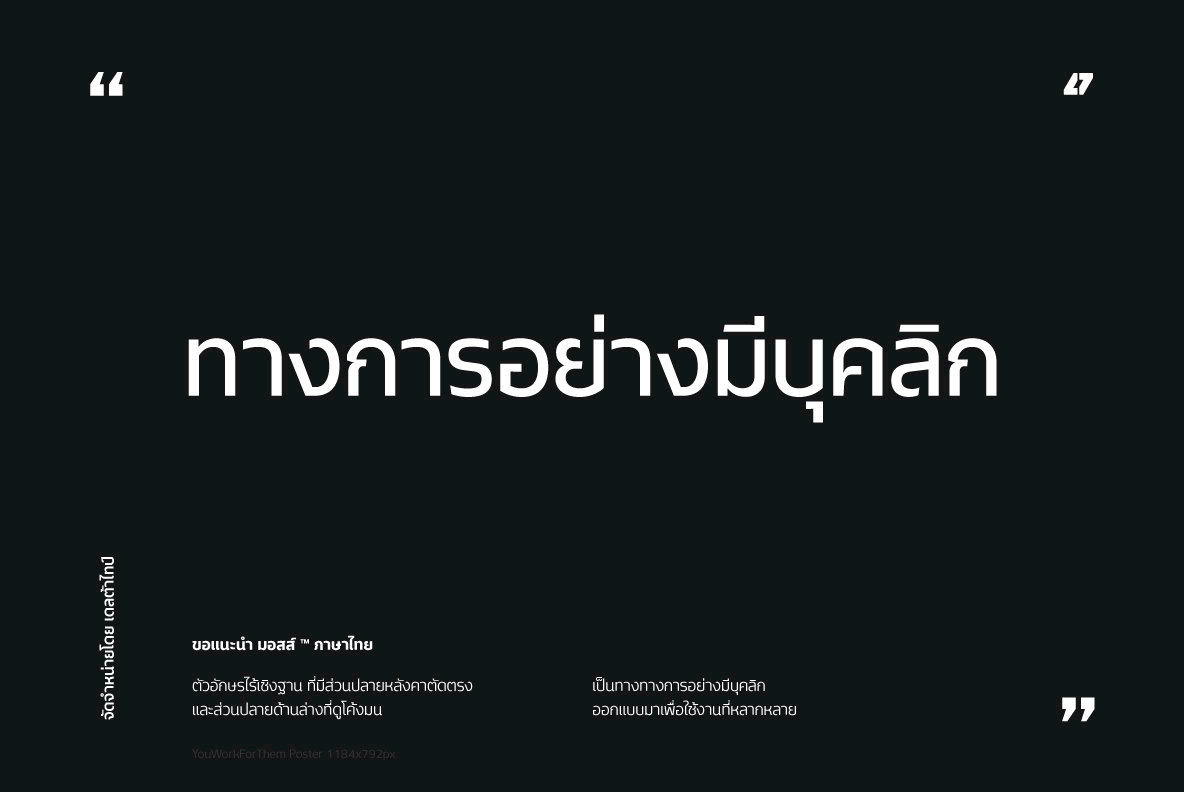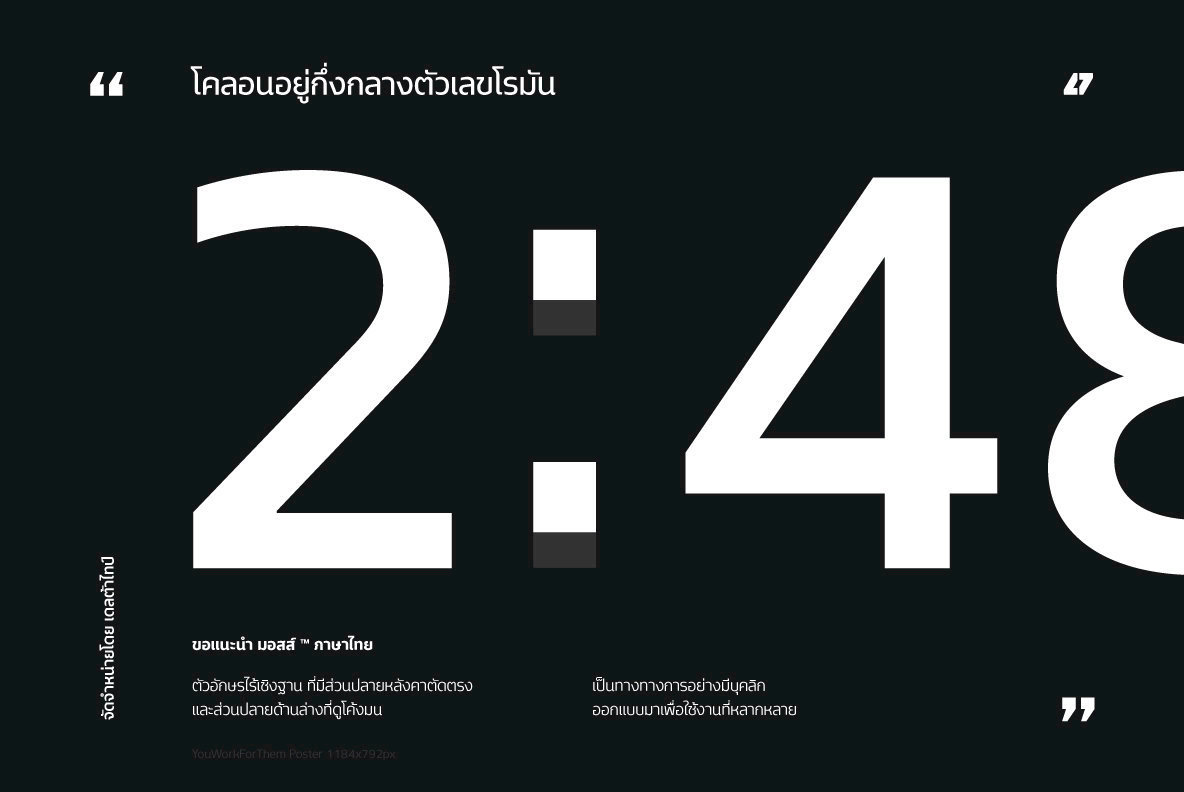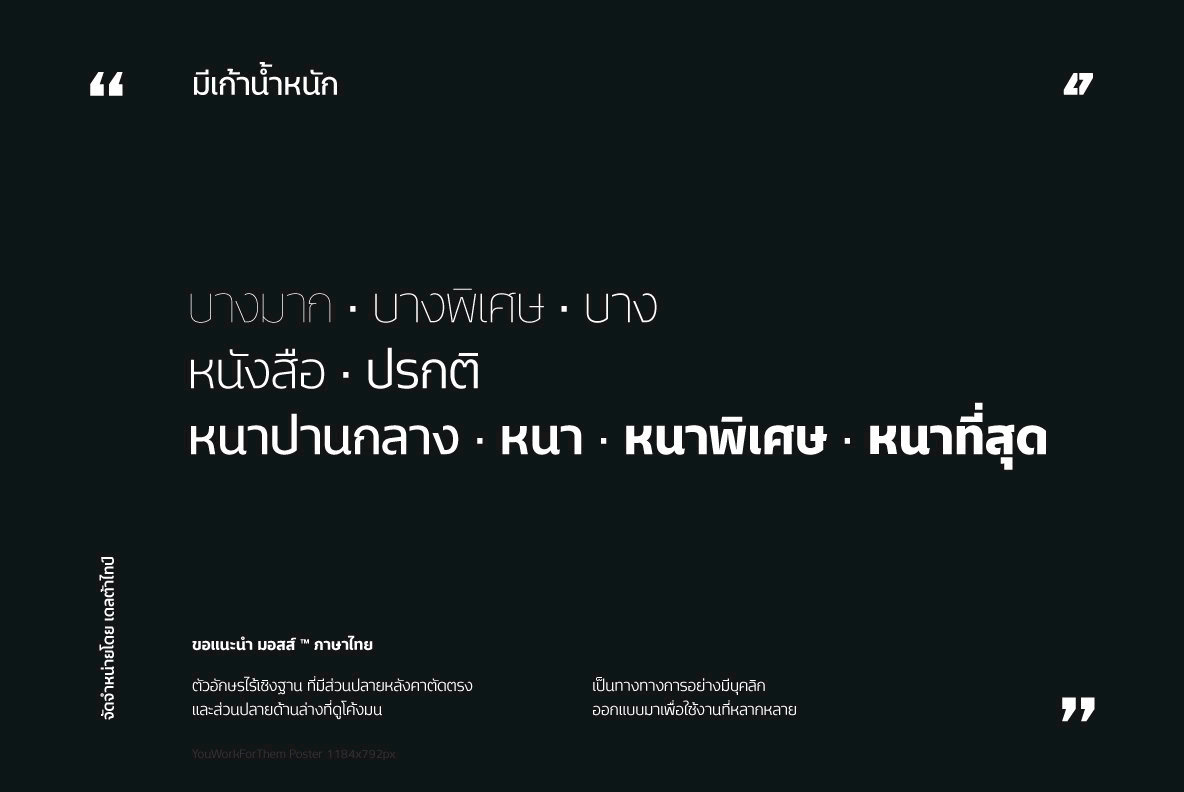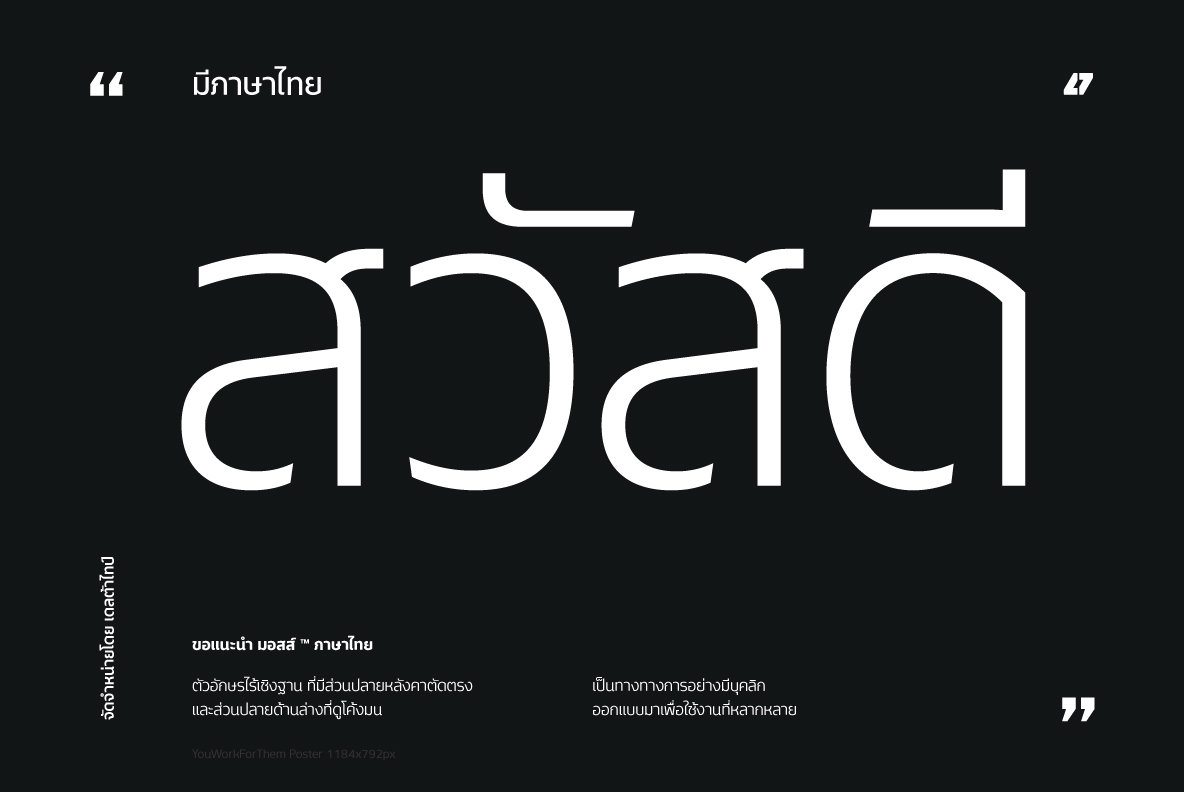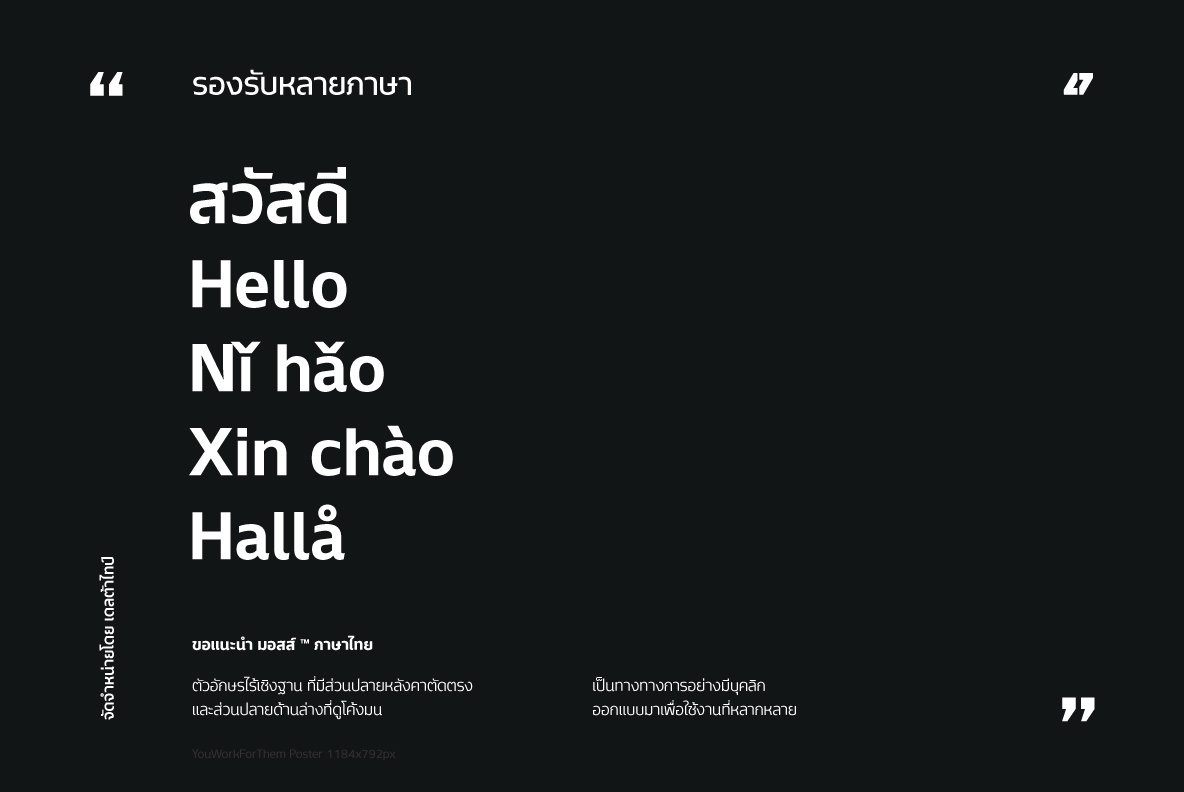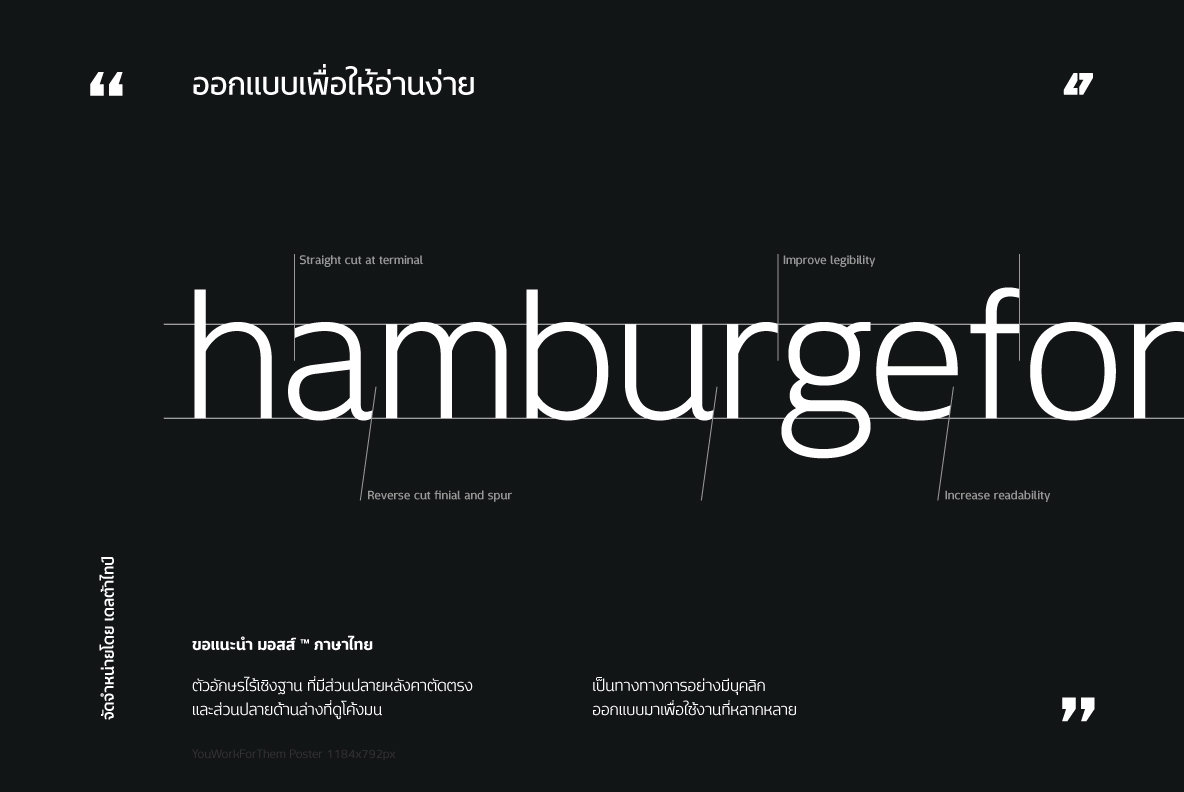
Mosse Thai Font
Mosse Thai offers a unique approach to typography with its finely balanced sans-serif style. Designed to enhance readability, this typeface strikes a formal yet casual tone. The design is characterized by straight cuts at the terminal and reverse angles at the spur and finial, adding a subtle touch of elegance. Mosse Thai stands out for its simplicity and distinctiveness, featuring nine different weights that allow for precise proportion adjustments. Additionally, the typeface supports a wide range of languages, courtesy of its extended Latin glyph set. It includes standard Adobe Latin 4 glyphs and offers world-ready and mark2mark support.Mosse Thai: A Sans-Serif Typeface for Readability
Features of Mosse Thai
Deltatype is a Thai type design studio known for its innovative approach to the Thai alphabet, crafting modern fonts that honor the language's unique visual character. Their work responds to the evolving role of typography in Thai design, where letterforms often serve as expressive design components, not just...